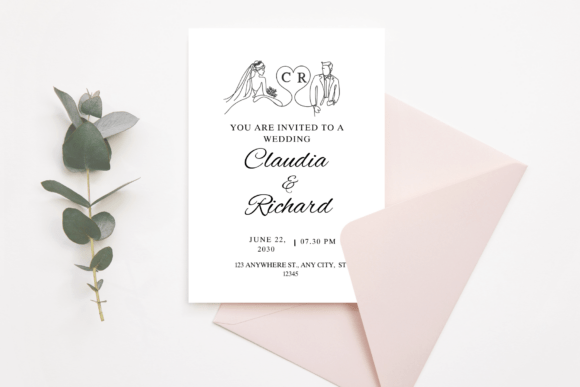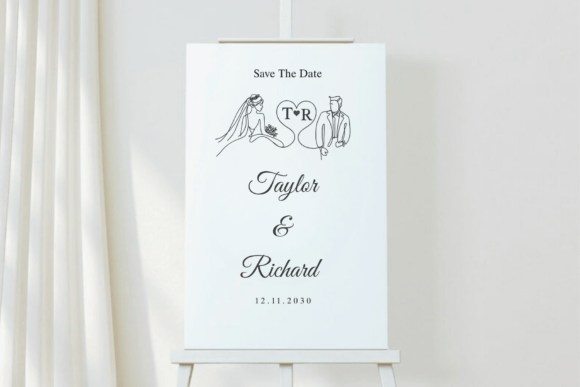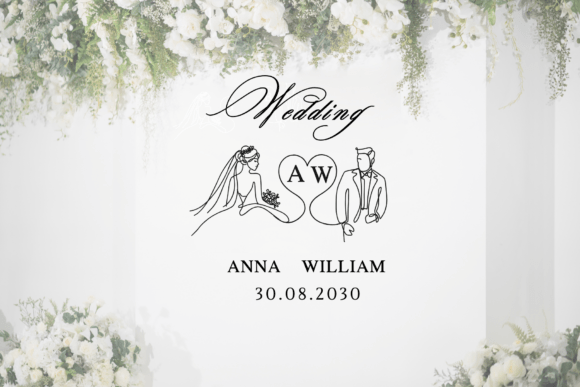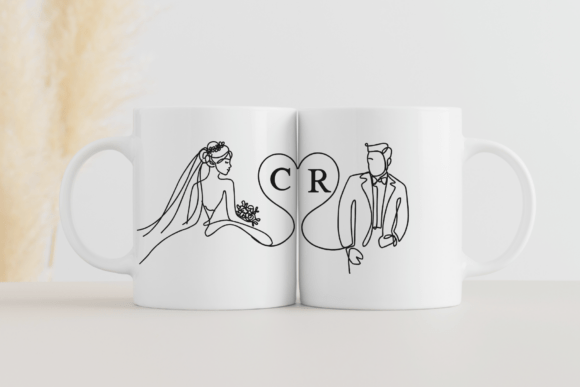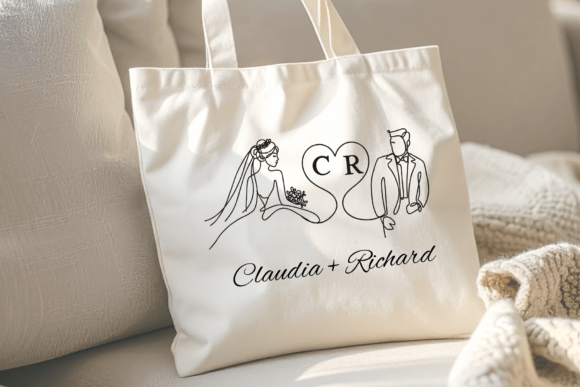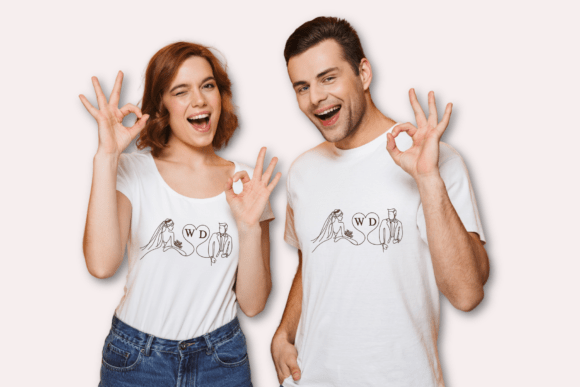
Line Art Wedding Monogram Font – Free Download
Introduction to Line Art Wedding Monogram Font
Line Art Wedding Monogram Alphabet is an elegant bride and groom monogram set designed for modern wedding branding.
This delicate Line Art Wedding typeface features fine, continuous line strokes that evoke the feeling of high-end illustration and modern art Integrating the Line Art Wedding font into your wedding stationery or monogram designs creates a look that is both timeless and avant-garde.
Key Features of Line Art Wedding Monogram Font